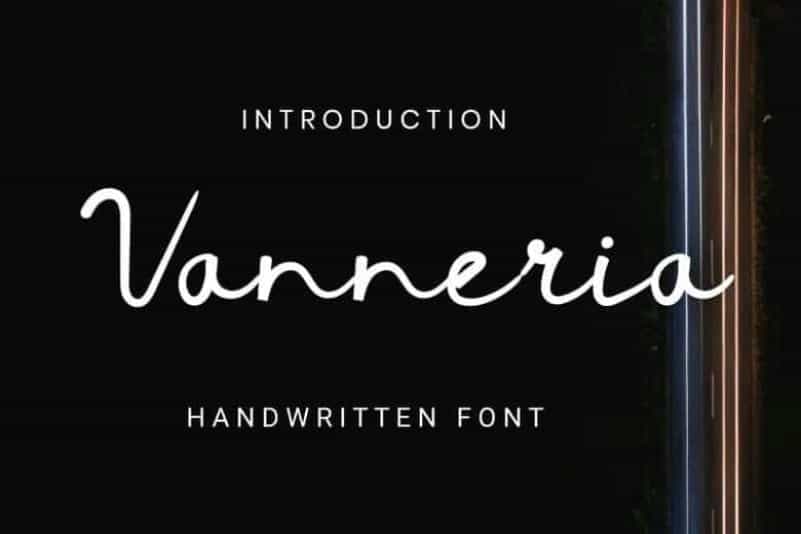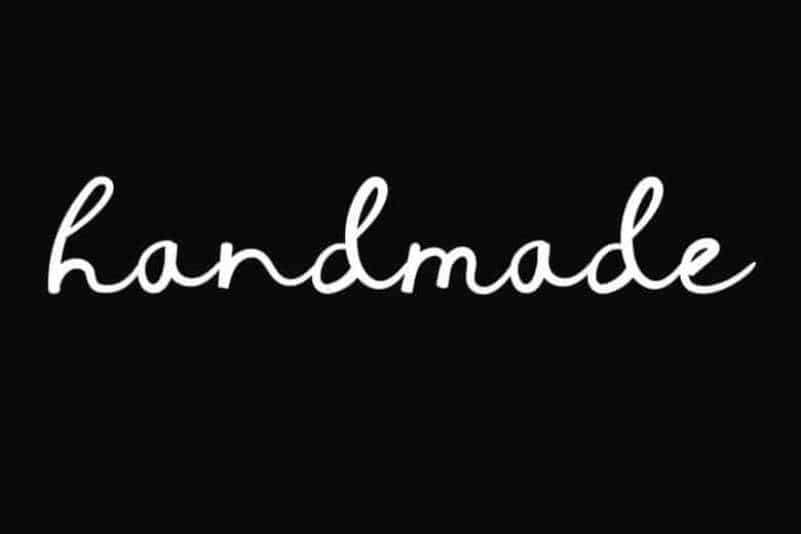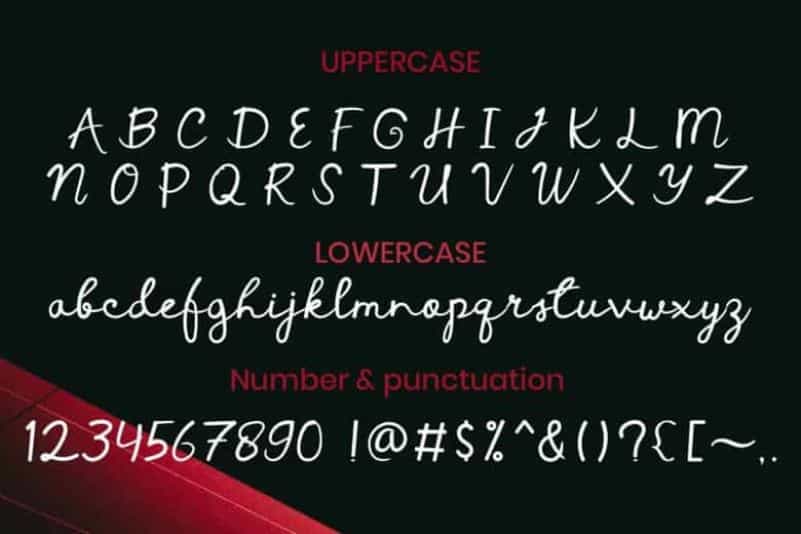
Discover Vanneria Handwritten Font, part of the Handwritten Script collection—a versatile and unique font perfect for adding a personal touch to your projects. Download it for free and enjoy crafting designs with style, from invitations to social media posts. This font is available exclusively for personal use, giving you the freedom to create without limits. Unlock your creativity with Vanneria Handwritten Font today!
Vanneria can be described as the most delicate and sweet handwritten font. Its timeless and relaxed feel is perfect for any of the many situations. Be enthralled by its amazing versatility and then use it to create amazing designs!